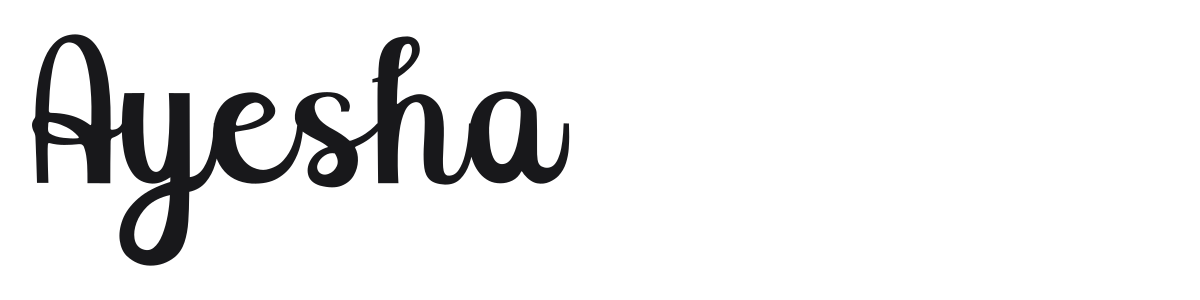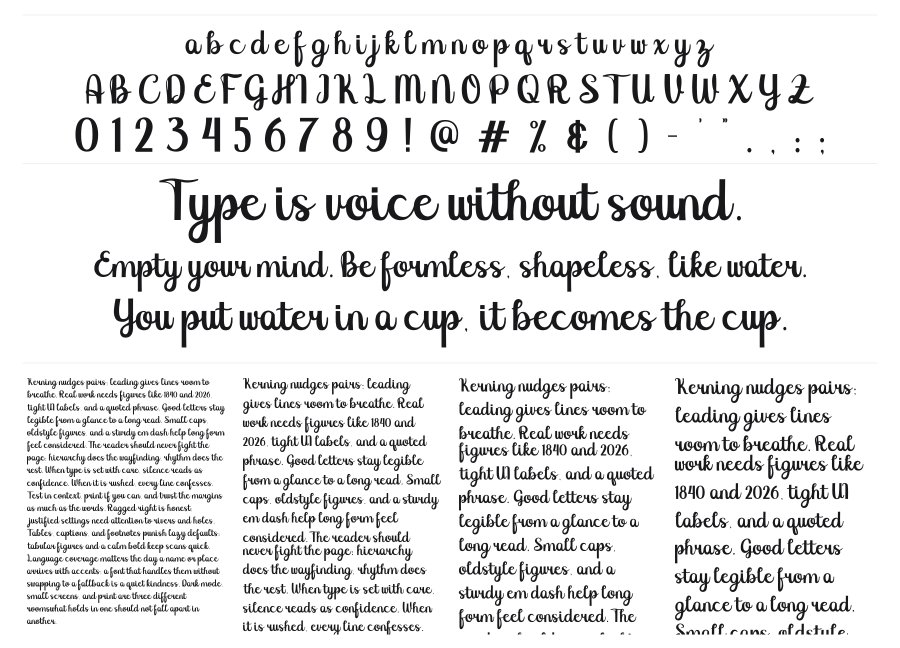
Ayesha
by Hardtype
Ayesha is a bold casual script with lively looping strokes and a warm hand-penned feel. Generous ascenders and smooth letter connections give it an energetic, flowing rhythm that works well at large sizes. It carries the kind of relaxed confidence that suits branding, packaging, and lifestyle projects.